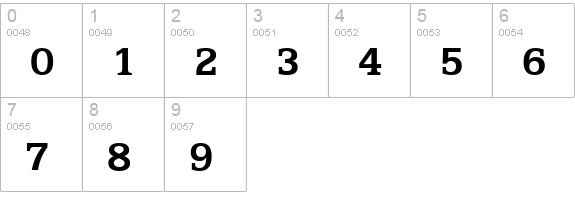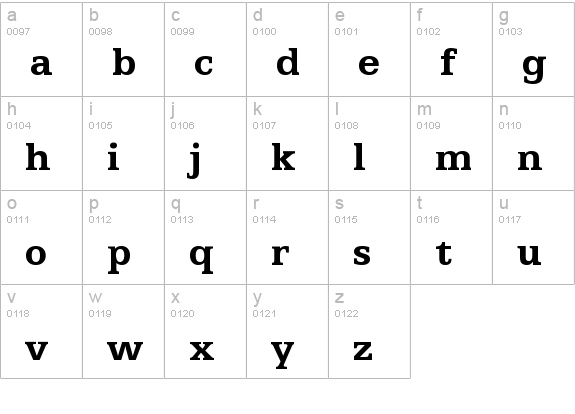
Egyptian-Text-Bold Font Details
Egyptian-Text-Bold is a strong, high-contrast variant in the Egyptian typeface family \xE2\x80\x94 well suited to headlines, attention-grabbing titles, and strong calls-to-action.
Introducing Egyptian-Text-Bold font - a stunning typeface that effortlessly combines ancient charm with modern elegance. This bold and eye-catching font is perfect for projects that require a touch of sophistication and a hint of history. The strong and distinctive letterforms of Egyptian-Text-Bold make it ideal for headlines, posters, logos, and more. And the best part? Egyptian-Text-Bold is completely free to download at FontsMarket.com. This means you can add this unique font to your collection without breaking the bank. Don't miss out on the opportunity to enhance your designs with the timeless appeal of Egyptian-Text-Bold. Download it now and let your creativity soar!